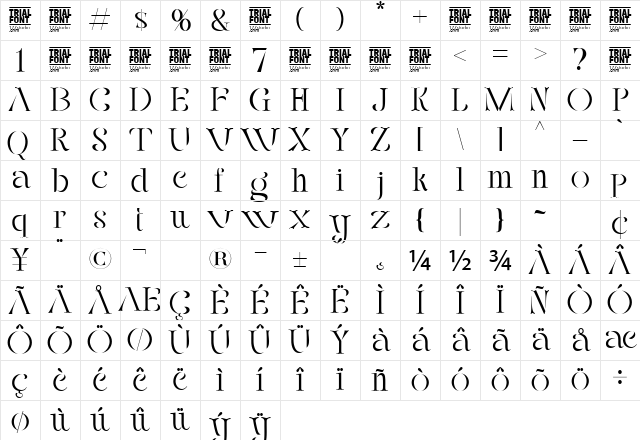
Fellee Stencil Demo Light Regular Free Font
Fellee Stencil Demo Light Regular
Design Context for Fellee Stencil Demo Light
Fellee Stencil Demo Light borrows the utilitarian aesthetic of stencil lettering, with its characteristic cutaways and no-frills construction lending an industrial edge. Its slender proportions lend an understated elegance to any composition.